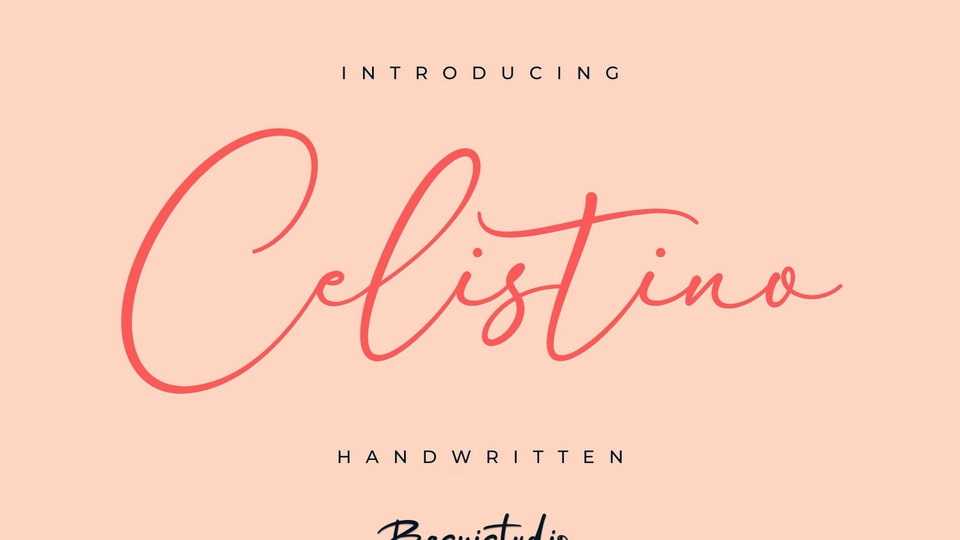
Download Celistino font, an organic signature style handwritten typeface, made with natural look and precision stokes, perfect for branding, websites, and editorial designs.